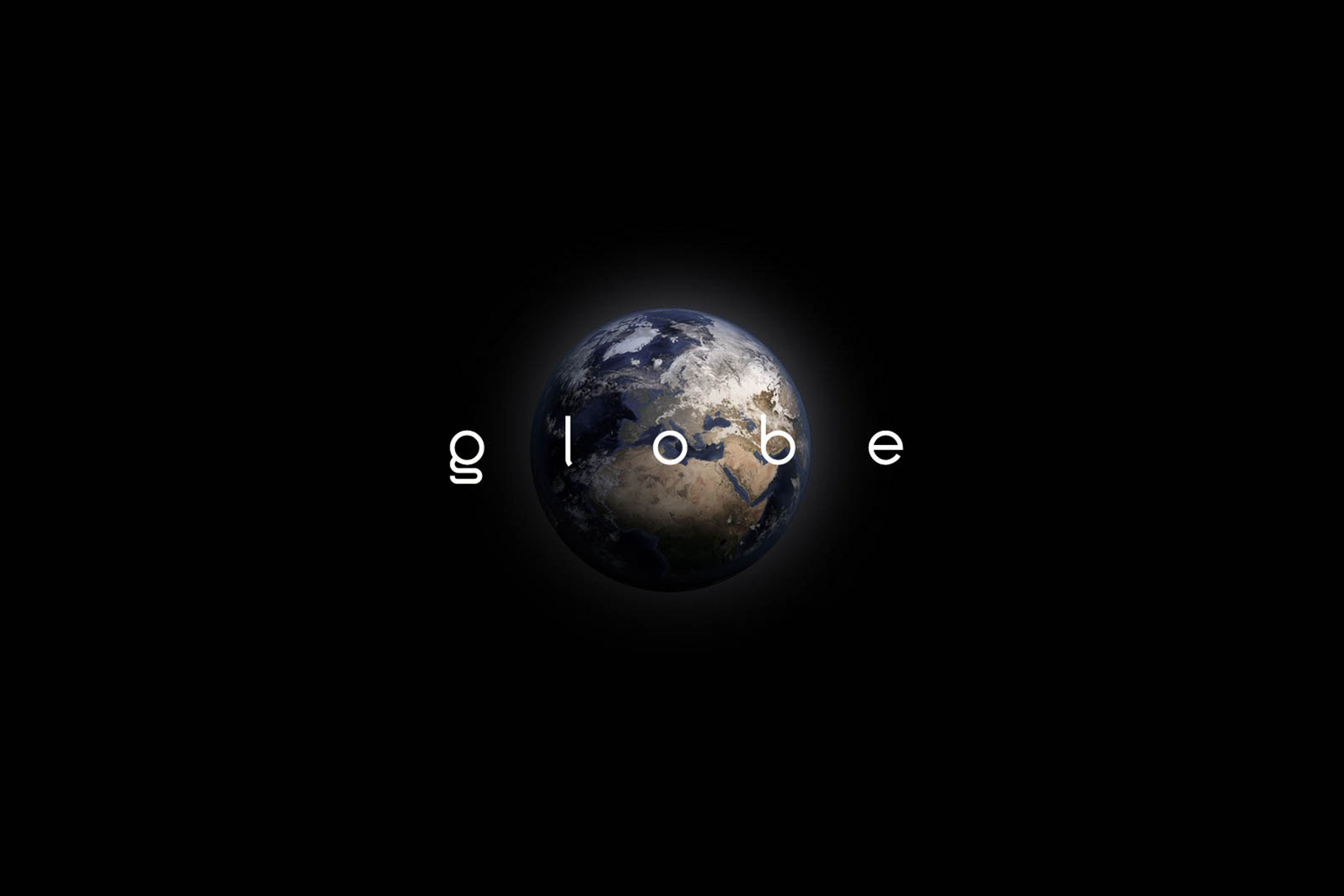
font package - globe & solar
Get the font package and save money! Included in this package are both of my font designs - globe and solar. Both are very minimalistic font designs, great for websites, flyers, etc. 'globe' is a lowercase font, 'solar' has both lowercase and uppercase letters.